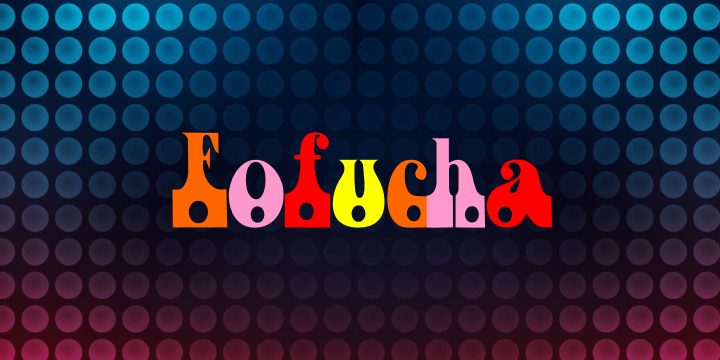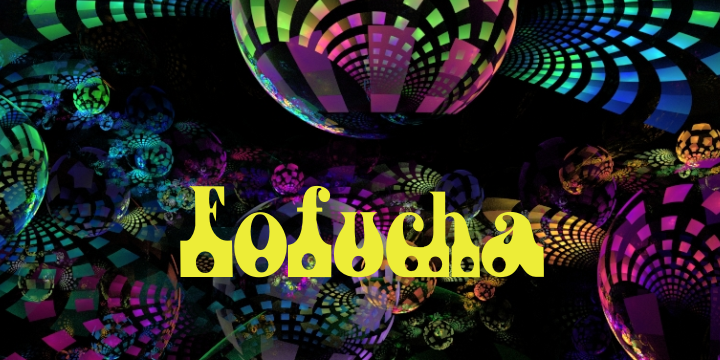
Fofucha
Designed by Paulo W, Fofucha is a display serif and retro font family. This typeface has seven styles and was published by Intellecta Design.
Fofucha is based in an old typeface by Seymour Chwast. Iza W draw this version.